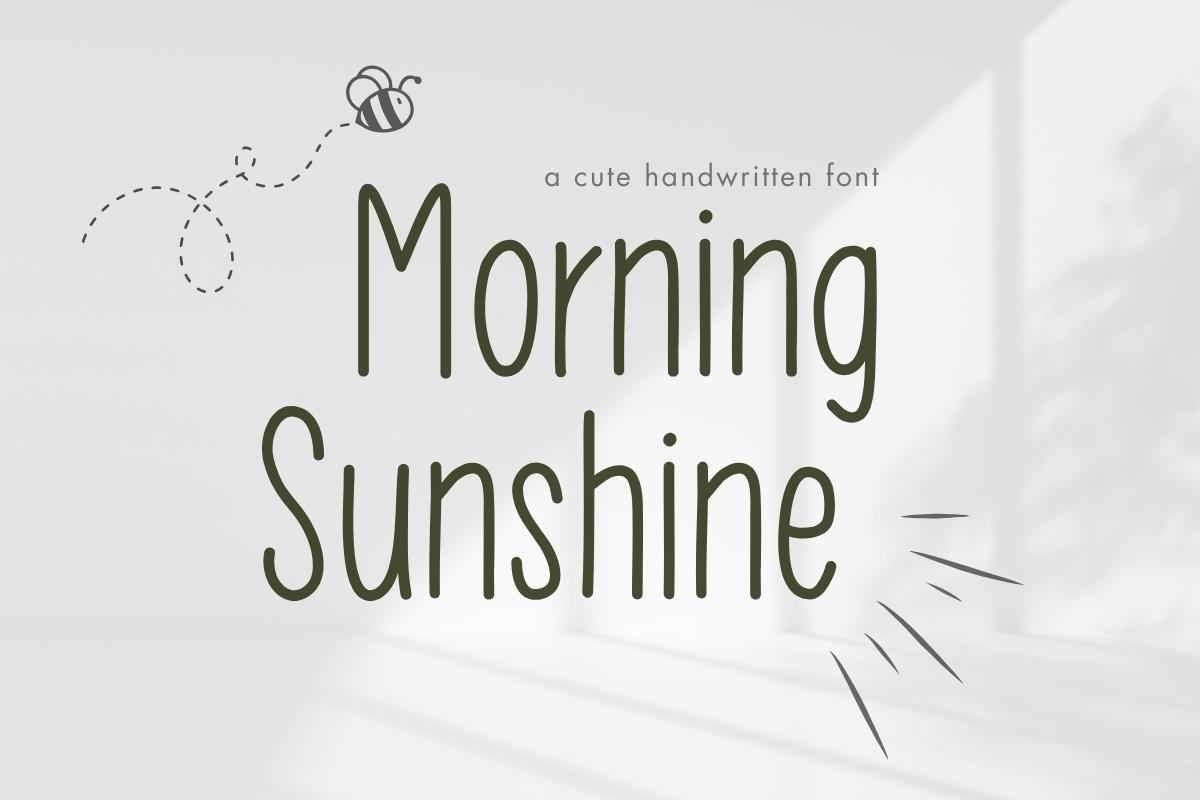
You must purchase this font for commercial use. However, you can download Morning Sunshine - Handwriting Font Free Download for testing purposes. Morning Sunshine is a light, airy handwritten font with elegant, flowing strokes. Perfect for creating soft and personal designs, this font works wonderfully for branding, wedding invitations, greeting cards, social media graphics, and any project that needs a warm, inviting touch.
The graceful, flowing nature of Morning Sunshine gives it a relaxed and joyful feel, making it ideal for projects that want to evoke positivity and warmth. Whether you’re designing for a boutique, a personal brand, or a heartfelt event, this font will add charm and elegance to your typography.